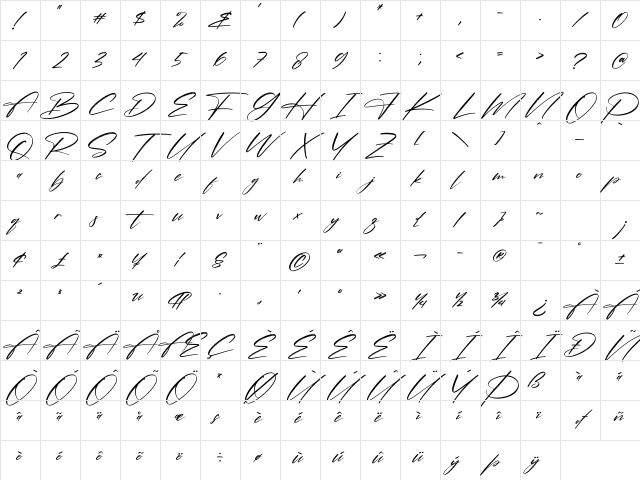
Pantherdam Signature Regular Free Font
Pantherdam Signature Regular
Foundry: Letternity
Designer: Letternity
Design Context for Pantherdam Signature
Pantherdam Signature is a composed and adaptable typeface that performs quietly and consistently across a wide range of design contexts.